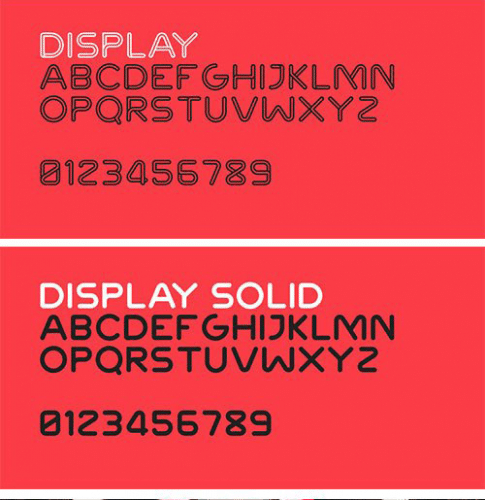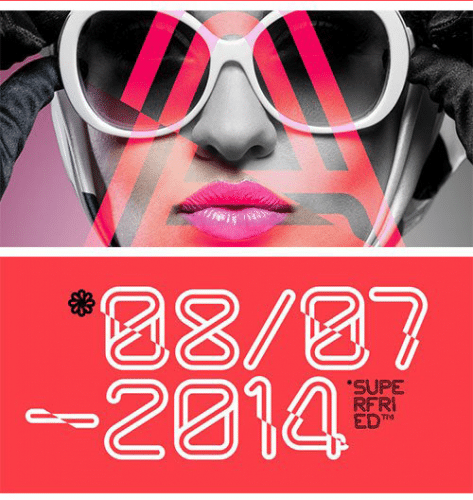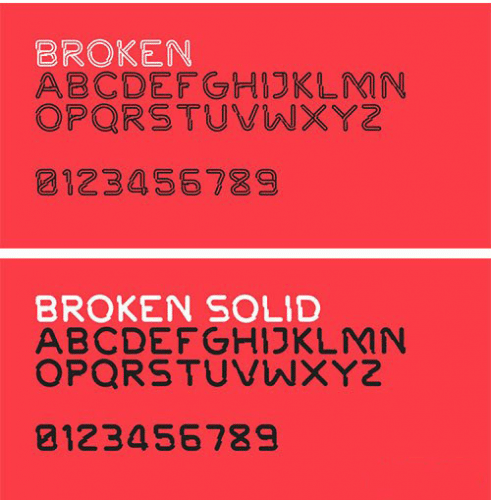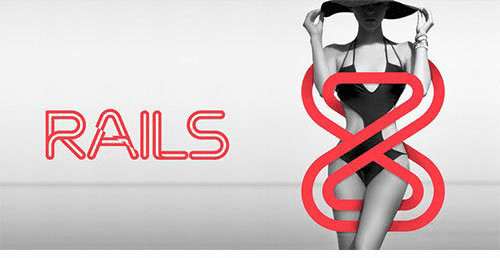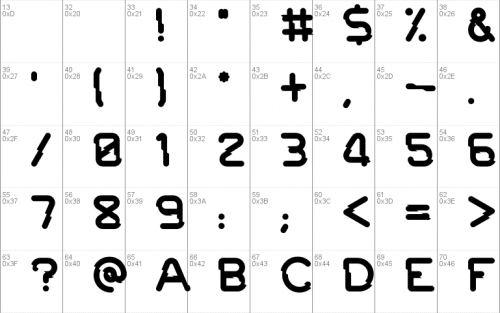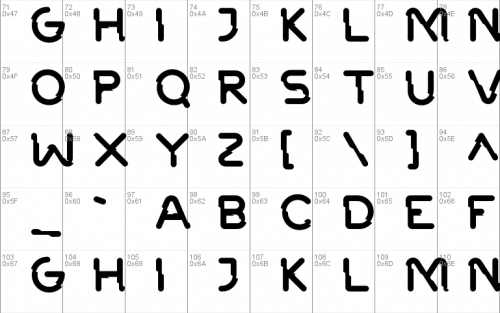
Rails is an experimental, outline display typeface designed by Superfried. Rails is available in four styles: display, display solid, broken and broken solid.
As the name suggests they are constructed from parallel tracks with the latter versions featuring distinct breaks for added impact. Combination of the two results in clean, flowing type with sudden and unexpected moments of disruption.